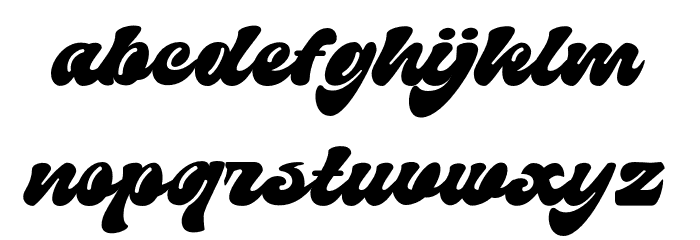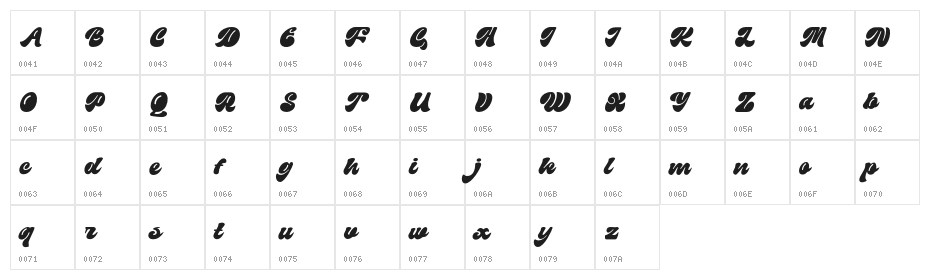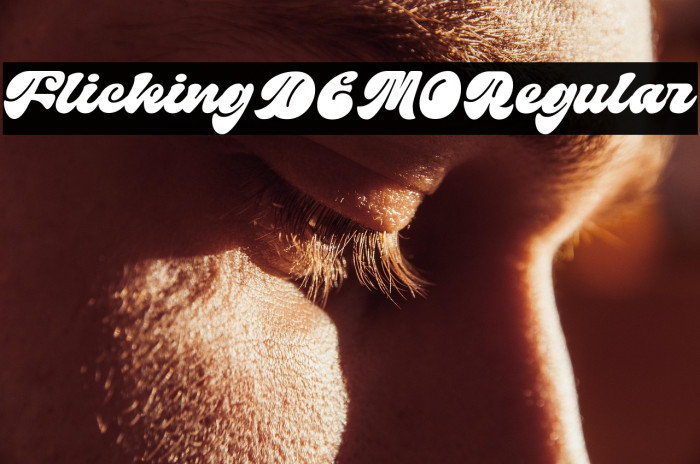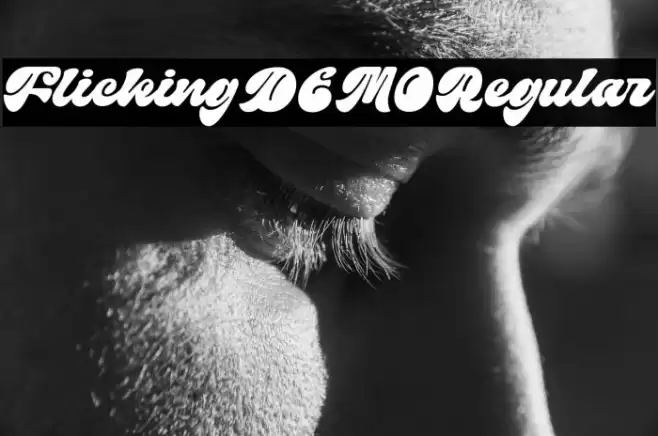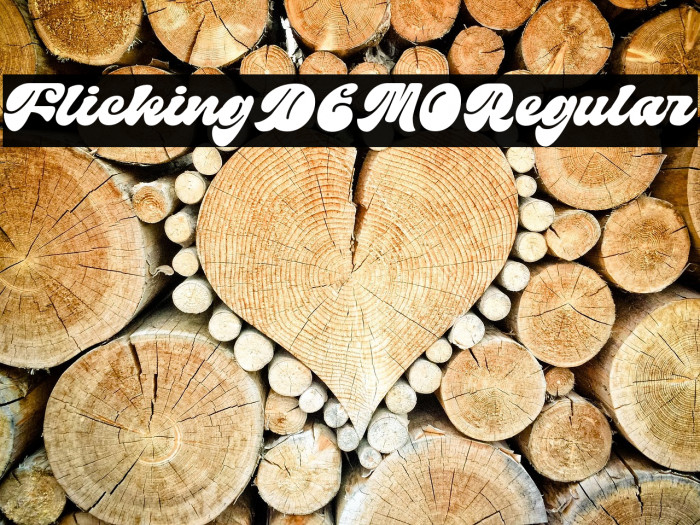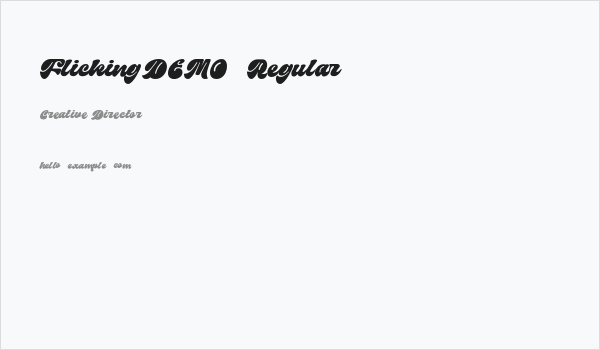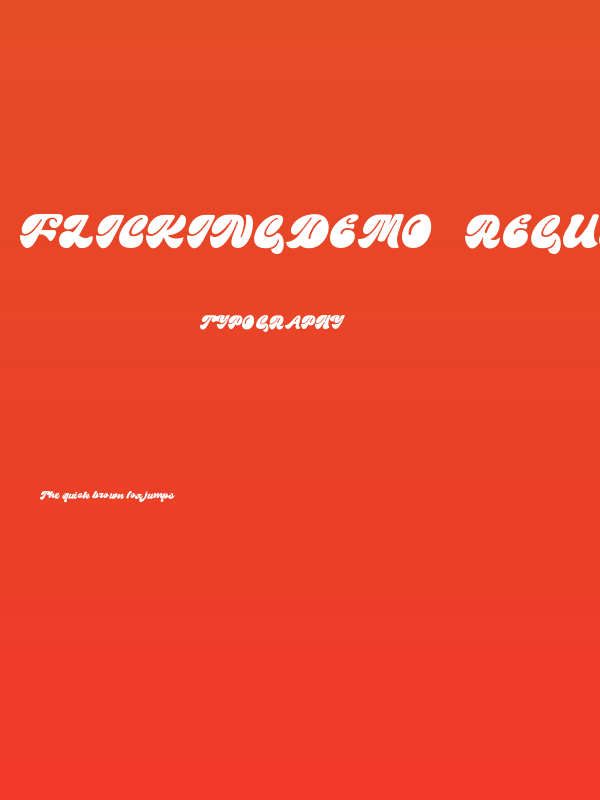
FlickingDEMO-Regular Font
This font features a bold and flowing script style, characterized by its thick, rounded strokes and smooth, connected letters. The uppercase letters are particularly striking, with a sense of movement and elegance that makes them stand out. The lowercase letters maintain the same fluidity, creating a cohesive and harmonious look. The font's boldness is consistent throughout, providing a strong visual impact. Its design is reminiscent of classic calligraphy but with a modern twist, making it versatile for various design applications.
A bold, flowing script font with smooth, connected letters and a modern calligraphic style.
- Proposed Projects: Ideal for branding, invitations, signage, and any project requiring a touch of elegance and sophistication.
- Character Spacing: Tight
- Use Case: Logos, Headlines, Invitations